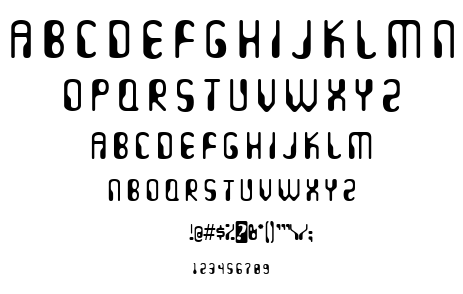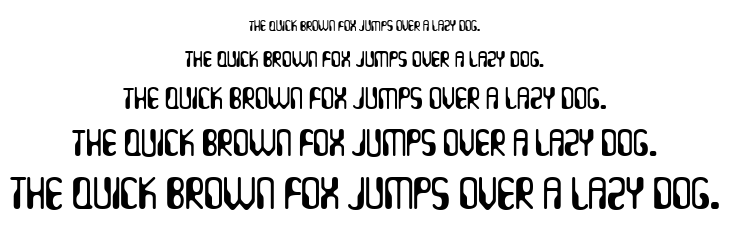
Hydrogen Whiskey
Hydrogen Whiskey is a capsule shaped, MICR inspired retro techno font. Don’t forget to read the files inside the zip for details. Updated in 2012.